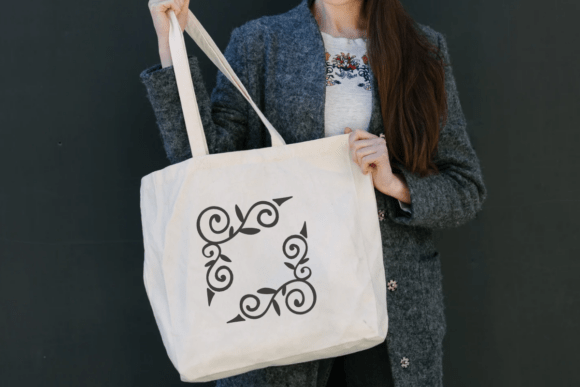
Vintage Corners Font
Vintage Corners Dingbats Font is a decorative dingbat typeface featuring an exquisite collection of ornamental corner elements. Perfect for adding a classic, elegant flourish to invitations, certificates, menus, labels, and vintage-themed designs, these detailed corner glyphs offer a touch of timeless sophistication. The font provides a diverse array of swirly, botanical, and filigree-style motifs that are easy to use as scalable vector assets in any design program supporting font files.